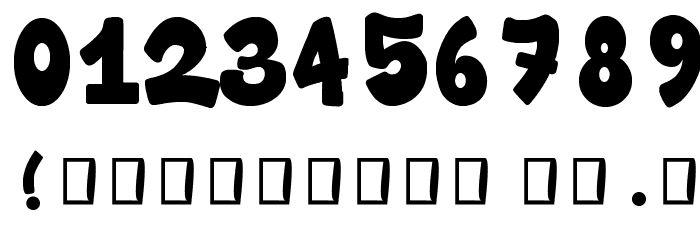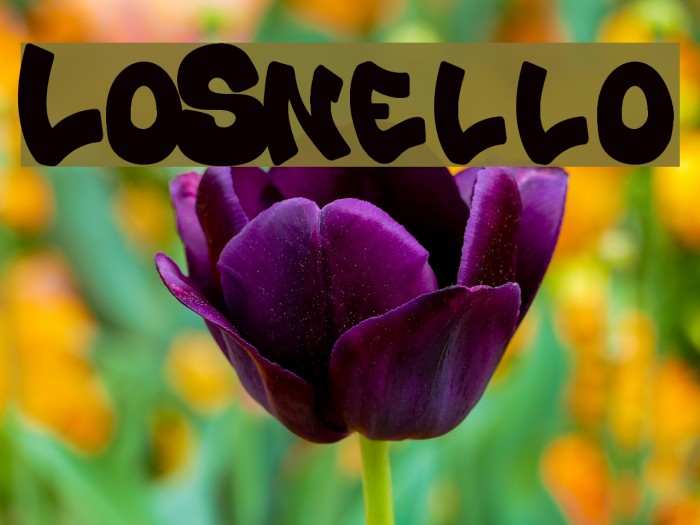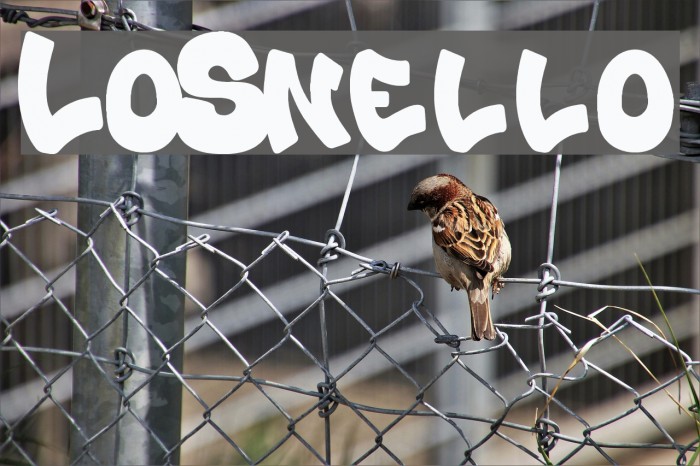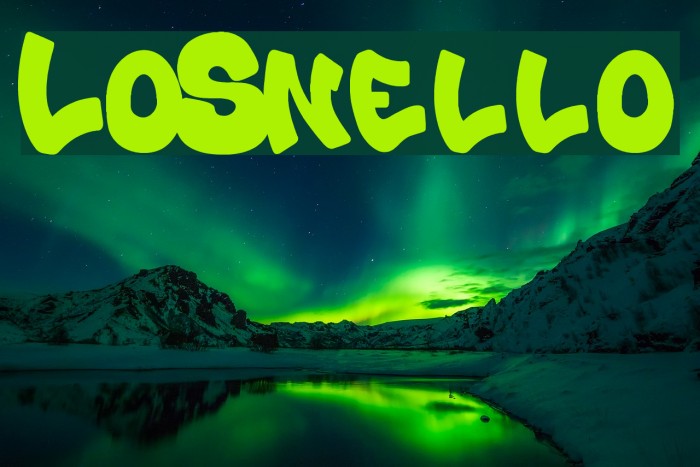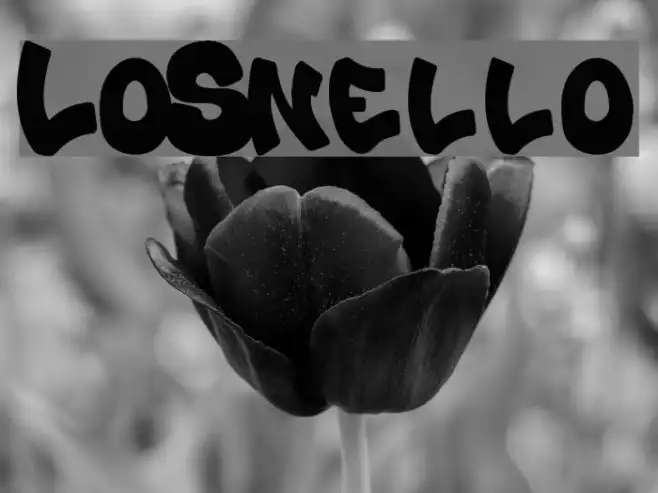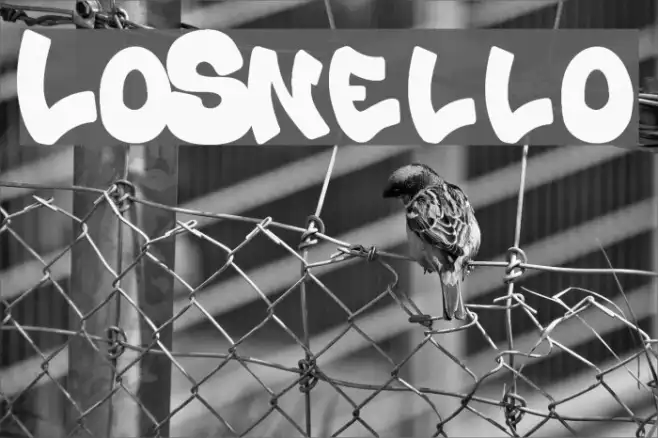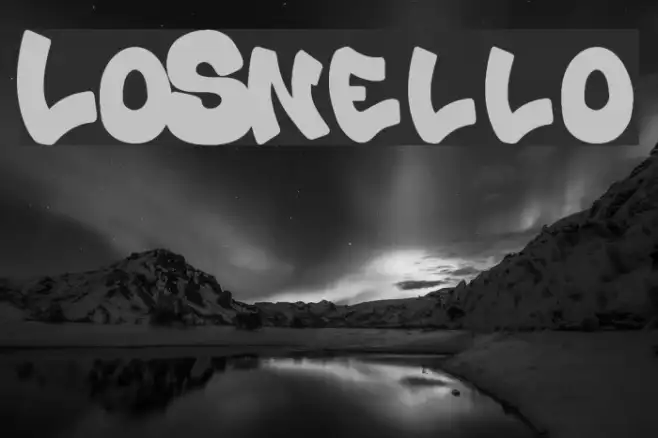
Lo_Snello Font
This font features a bold and playful style with exaggerated curves and a slightly irregular form, giving it a whimsical and dynamic appearance. The characters are thick and rounded, with a strong presence that makes them stand out. The uppercase and lowercase letters maintain a consistent style, with the lowercase being slightly more compact. Numbers and special characters follow the same bold and playful design, ensuring uniformity across all elements. The font's unique style is both eye-catching and approachable, making it suitable for creative and informal applications.
A bold, playful font with exaggerated curves and a whimsical style.
- Proposed Projects: Ideal for children's books, playful branding, posters, and creative projects that require a fun and engaging typeface.
- Overall Style: Playful, Whimsical